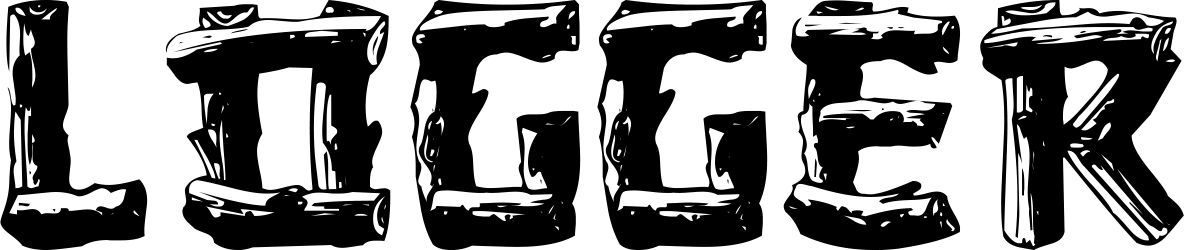
Logger Font
Logger font brings to life the feeling of being in a vast forest. This wooden font has characters that can be used in many design products, including carpentry brands. This rough font does not contain any numbers but By…
Logger font brings to life the feeling of being in a vast forest. This wooden font has characters that can be used in many design products, including carpentry brands. This rough font does not contain any numbers but By using it, you can add any harsh and mysterious design to your project.
We suggest using this free forest font in animal and wildlife themes. Video game designs and animation posters are also useful as well.